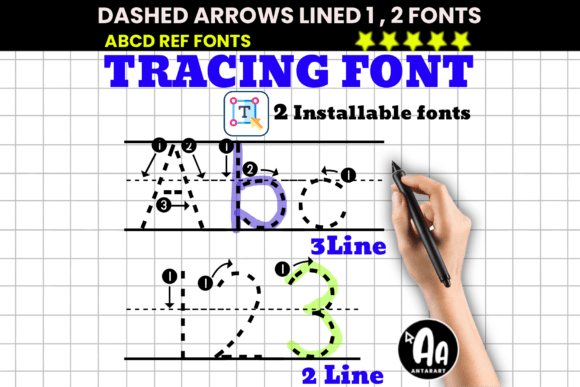
Bringing Handwriting to Life: The Dashed Arrows Lined Duo Font
Remember the joy of creating artwork with your non-dominant hand as a child? The freedom to experiment and explore different textures, colors, and techniques, all while developing fine motor skills? As designers, we strive to recreate that magic in our digital creations. One way to do this is by using the Dashed Arrows Lined Duo Font, a comprehensive set designed specifically for early learners.
This innovative font combines dotted tracing, directional arrows, and numbered stroke order with two ruled formats, providing students with clear guidance and spatial feedback. By incorporating the Dashed Arrows Lined Duo Font into your designs, you can create interactive, visually guided worksheets that support consistent handwriting development. Ideal for printable practice sheets, bulletin board letters, and classroom décor, this font is a valuable tool for designers looking to bring a touch of creativity and fun to their work.
Dashed Arrows Lined Duo Font Features
- Unique Combination of Dashed Arrows and Lined Duo Elements: This font combines two distinct design elements, creating a visually appealing and modern look.
- Unique Character Set: Includes a range of characters, including letters, numbers, punctuation marks, and special symbols, making it a versatile font for various design projects.
- OpenType Features: Supports OpenType features, including ligatures, fractions, and ornaments, allowing for advanced typographic control and customization.
Dashed Arrows Lined Duo Font Review
At first glance, the Dashed Arrows Lined Duo Font is a stylish and modern font that can add a touch of sophistication to any design project. ✨ The font’s unique design features a combination of dashed arrows and lined elements, creating a visually appealing and eye-catching effect. The font is also highly customizable, allowing designers to adjust the arrow and line styles to suit their specific needs.
Here are some of the font’s key strengths:
- ✨ Unique and modern design
- ✨ Highly customizable
- ✨ Suitable for a wide range of design projects, from logos to infographics
- ⚠️ The font may be too bold or overpowering for some designs
- ⚠️ Some users may find the font’s customization options overwhelming
- ⚠️ The font may not be suitable for text-heavy designs
Overall, the Dashed Arrows Lined Duo Font is a great choice for designers who want to add a touch of modernity and sophistication to their projects. While it may have some limitations, the font’s unique design and high level of customization make it a valuable addition to any designer’s toolkit.
The Dashed Arrows Lined Duo Font is ideal for:
Creating modern and trendy designs.
Adding a touch of sophistication to your branding.
Highlighting important information or calls-to-action.